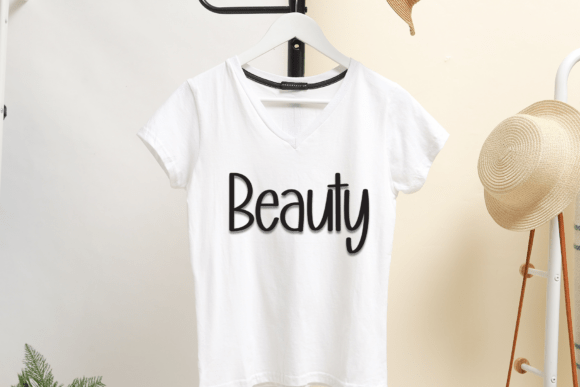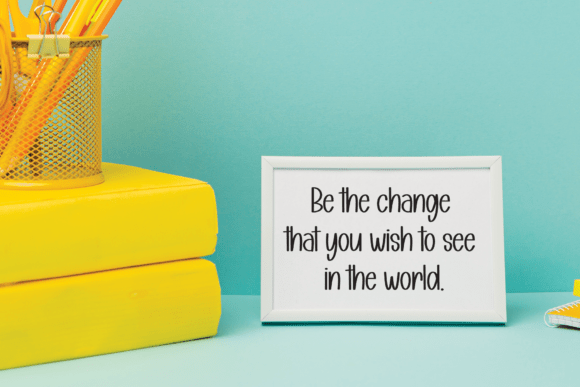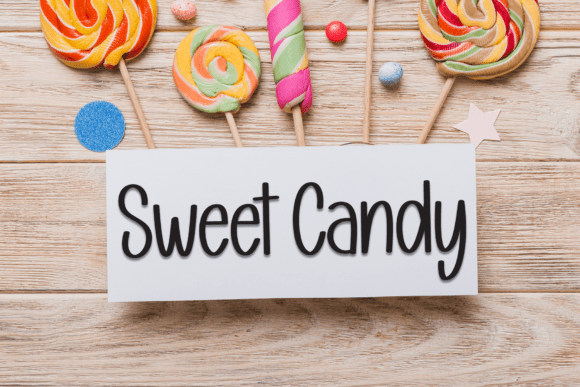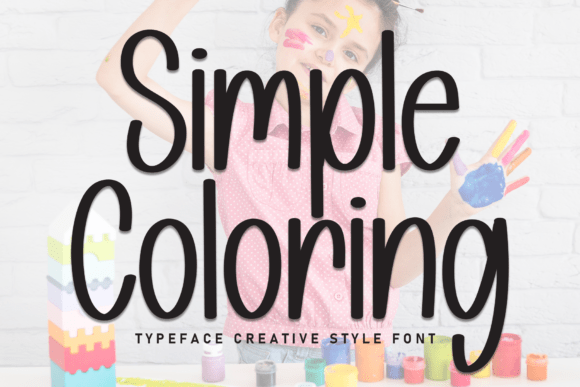
Introduction to Simple Coloring Font
A confident and stylish typeface that blends hand-lettered charm with eye-catching thickness.
Perfect for logos, headlines, t-shirts, social media posts, and packaging, this font commands attention while keeping a fun, friendly vibe Its dynamic strokes and smooth curves give every design a bold personality and a modern handwritten feel.
Key Features of Simple Coloring Font
Why Choose Simple Coloring Font?
Simple Coloring Font offers exceptional quality and versatility, making it a valuable addition to your design toolkit. Whether you’re creating for personal projects or commercial use, Simple Coloring Font delivers professional results.